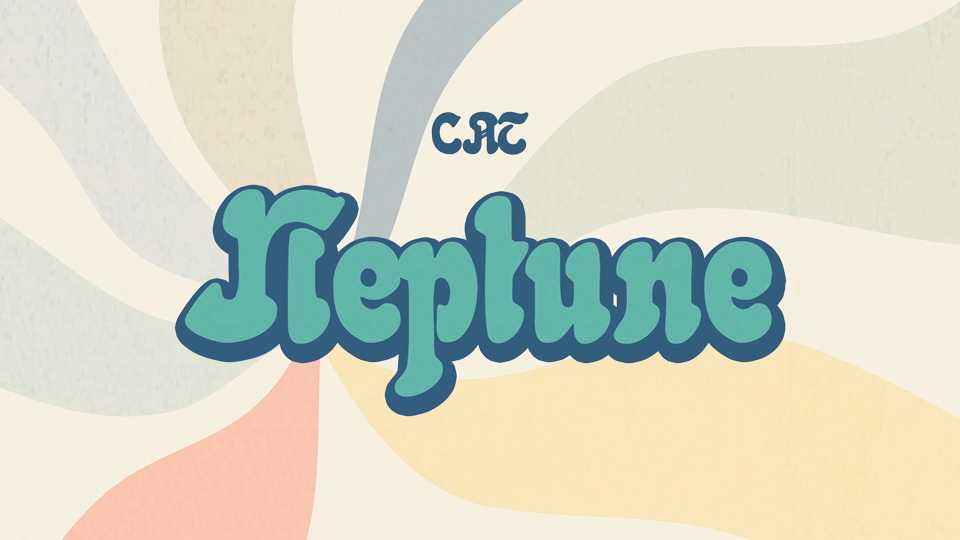
Download Neptune font, an Art Noveau typeface, a revieval of the font designed by unknown artist and published in 1900. Neptune perfectly works for vintage design, posters, headlines, labels and more.